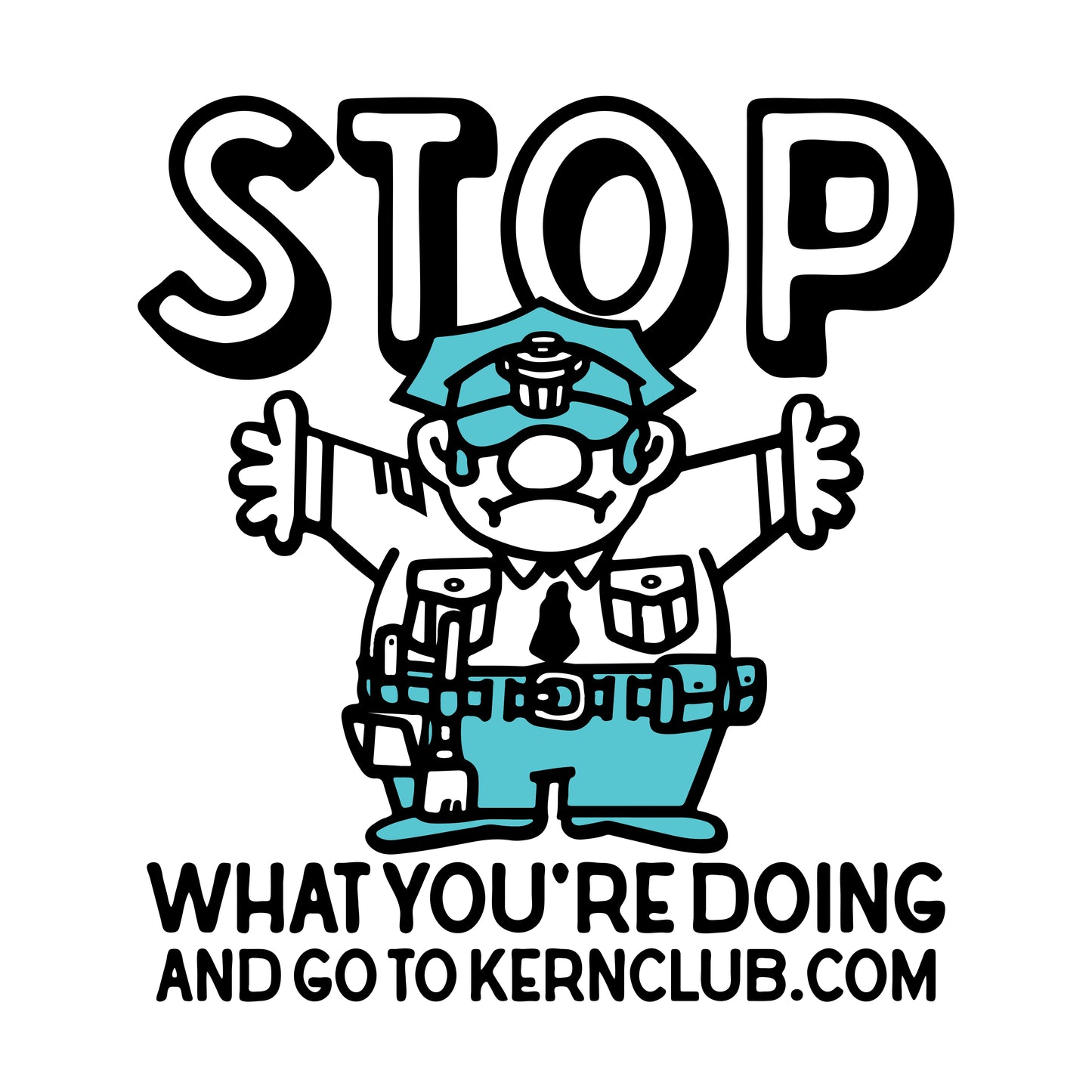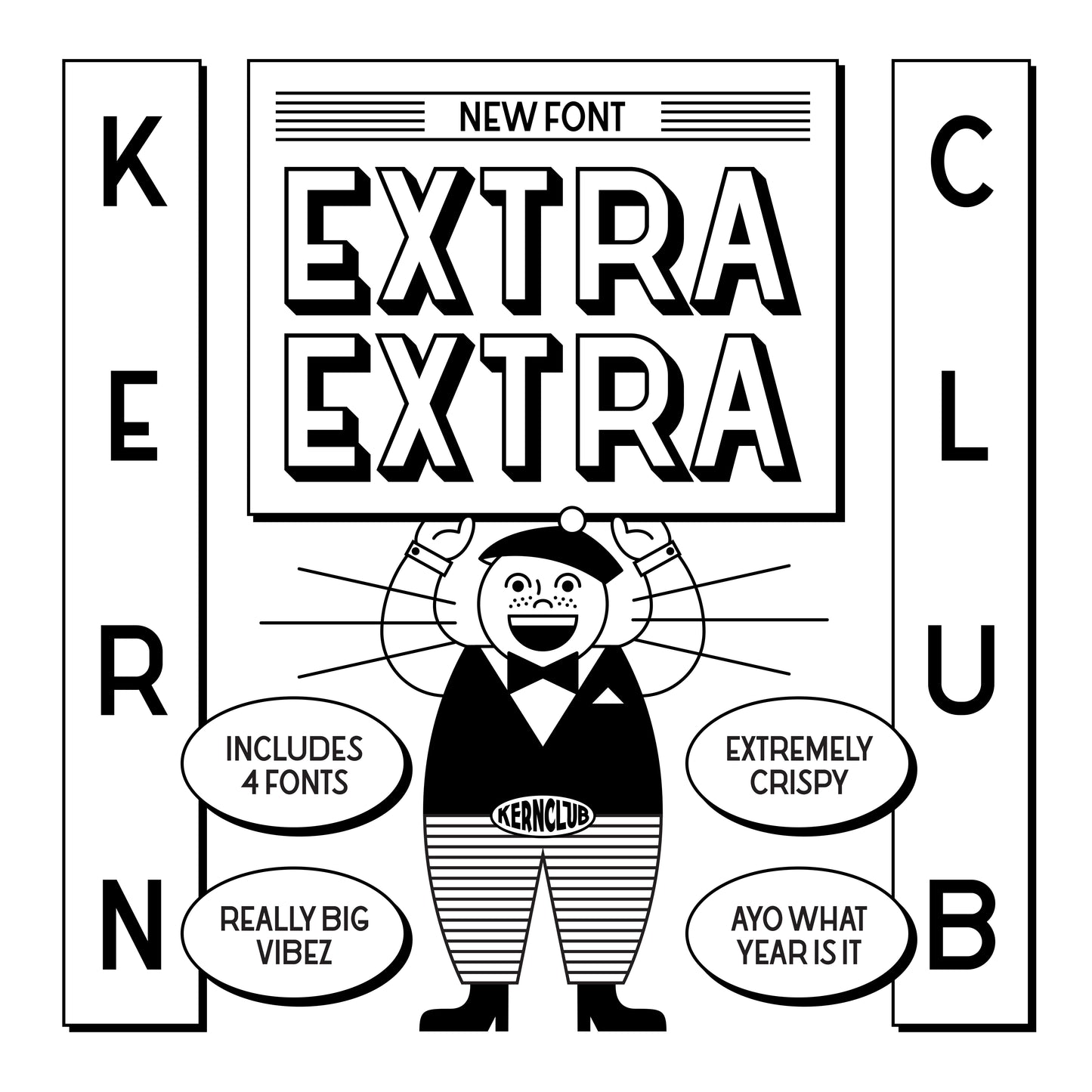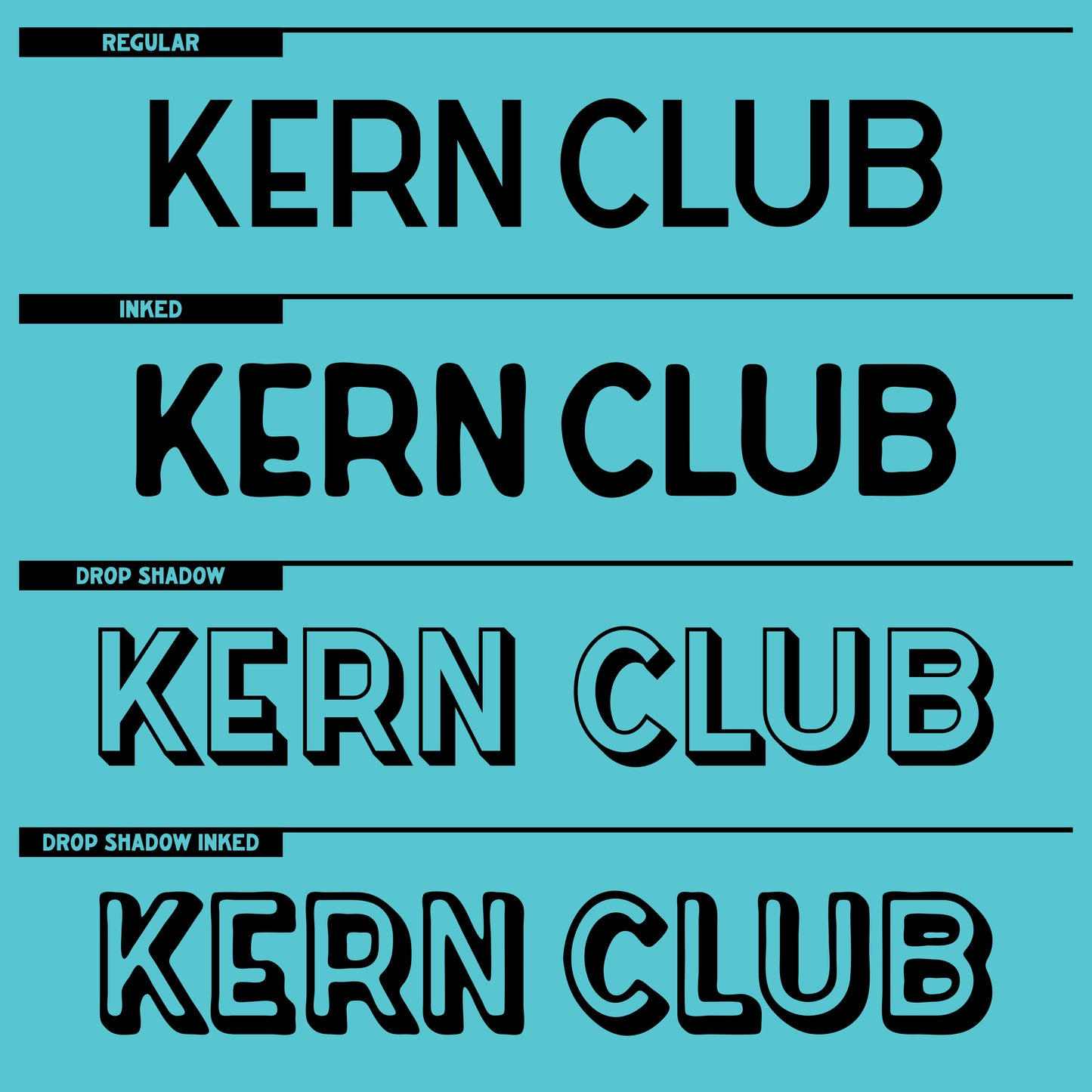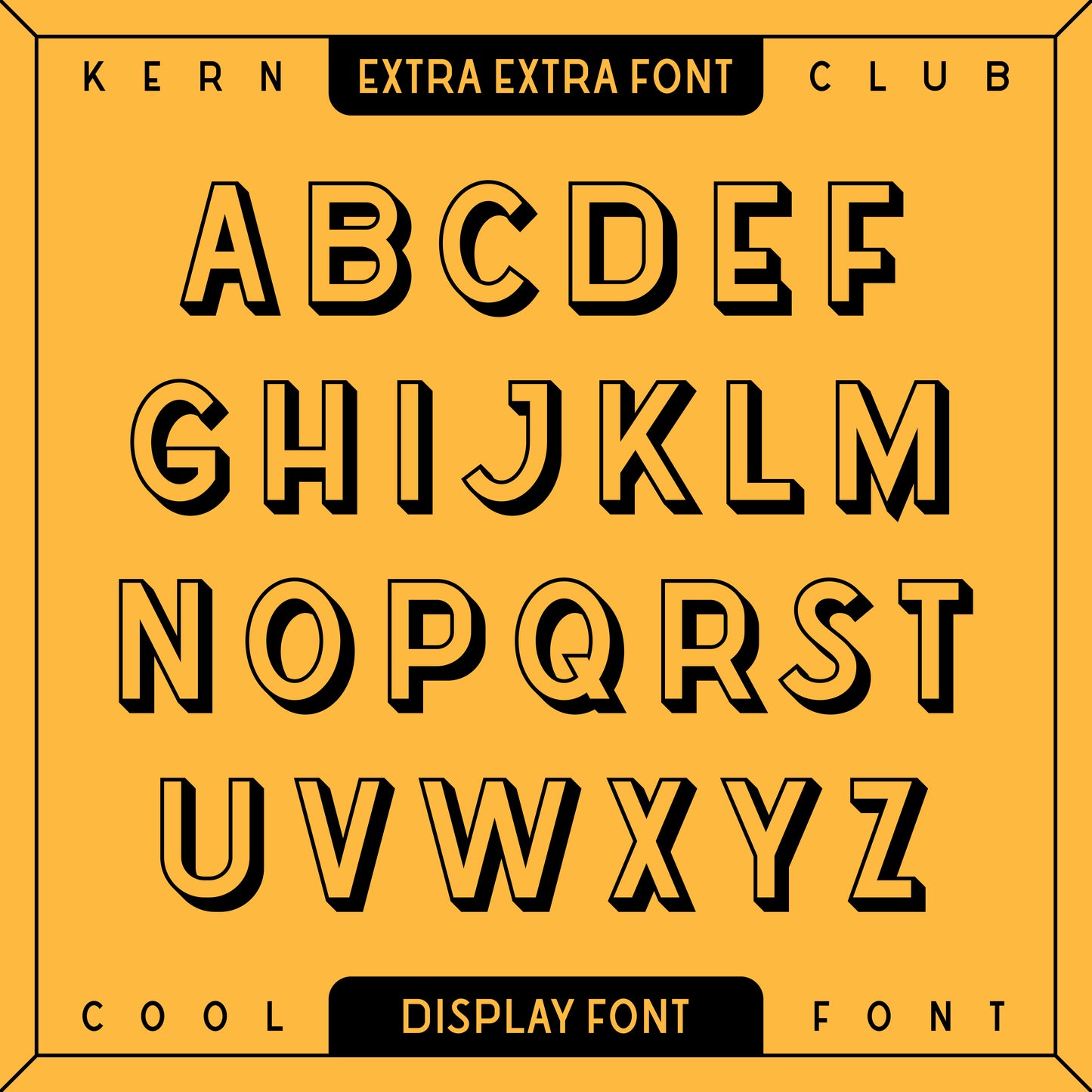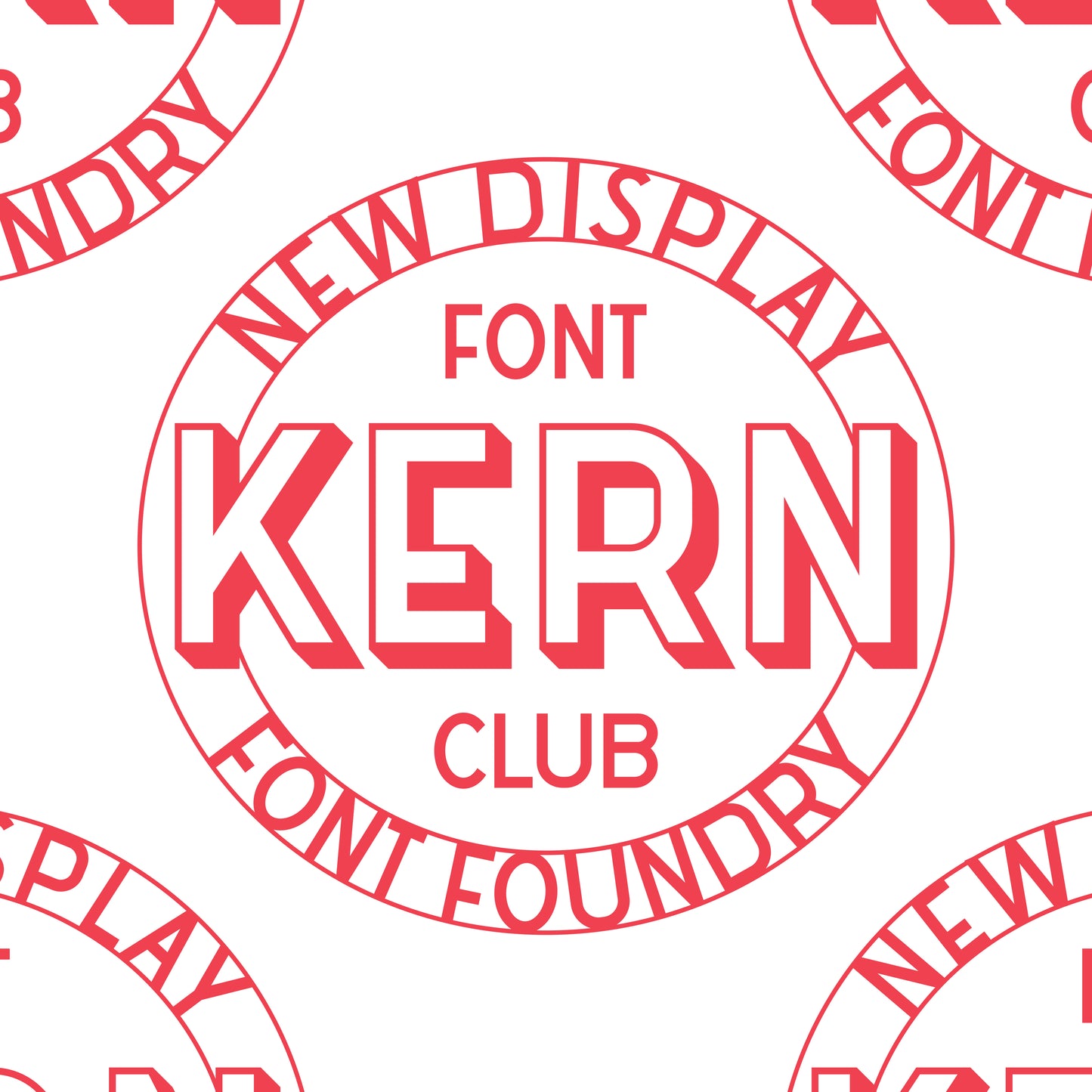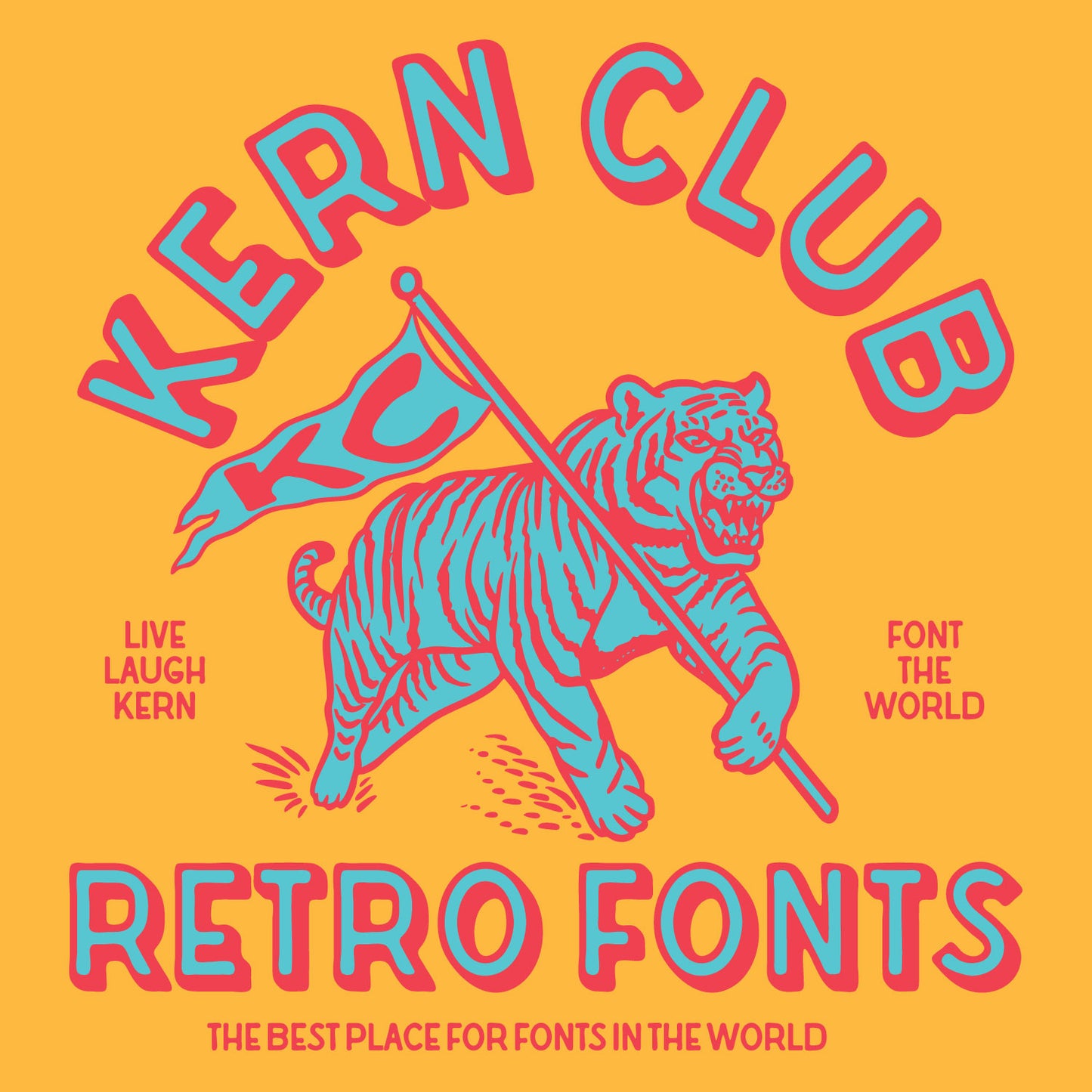
Extra Extra Font
Extra Extra read all about it! A timeless sans serif font. Use it now, or use it in 50 years.
- Includes regular, drop shadow & inked versions (4 fonts)